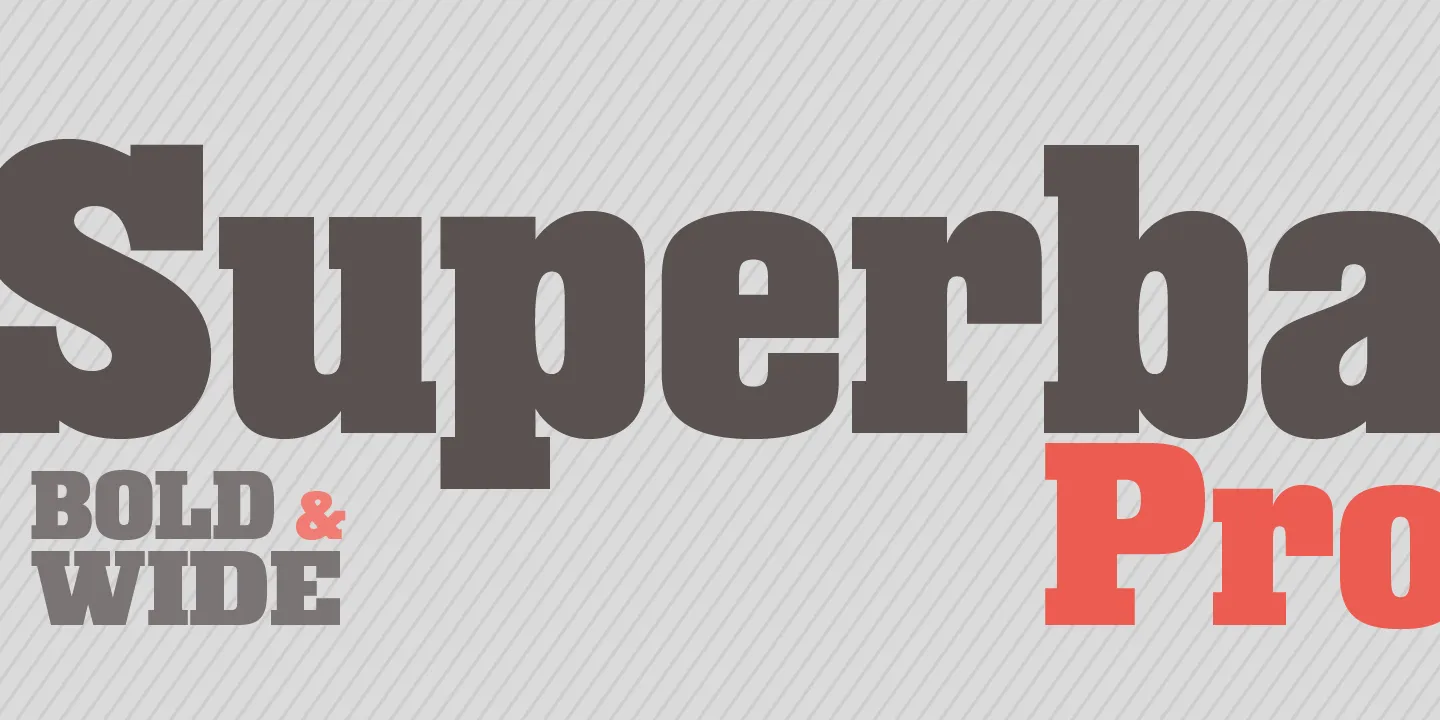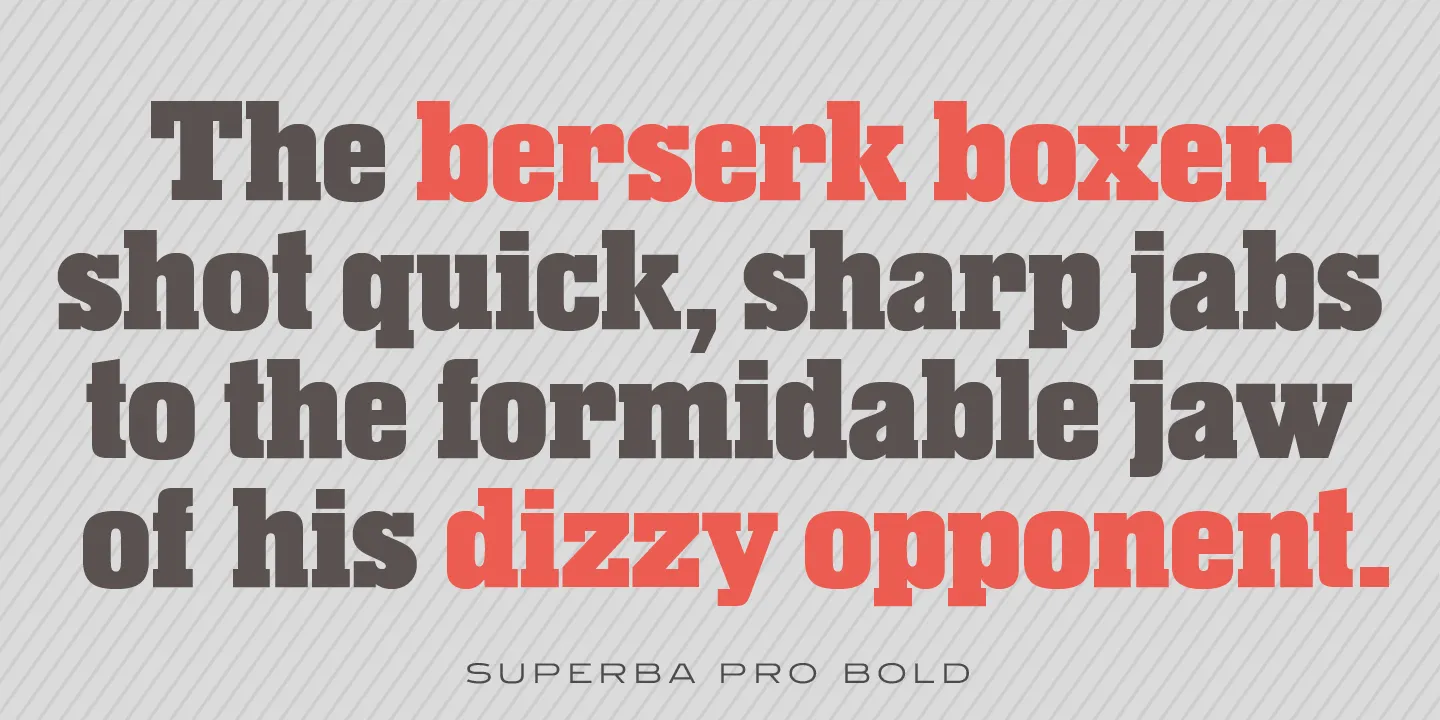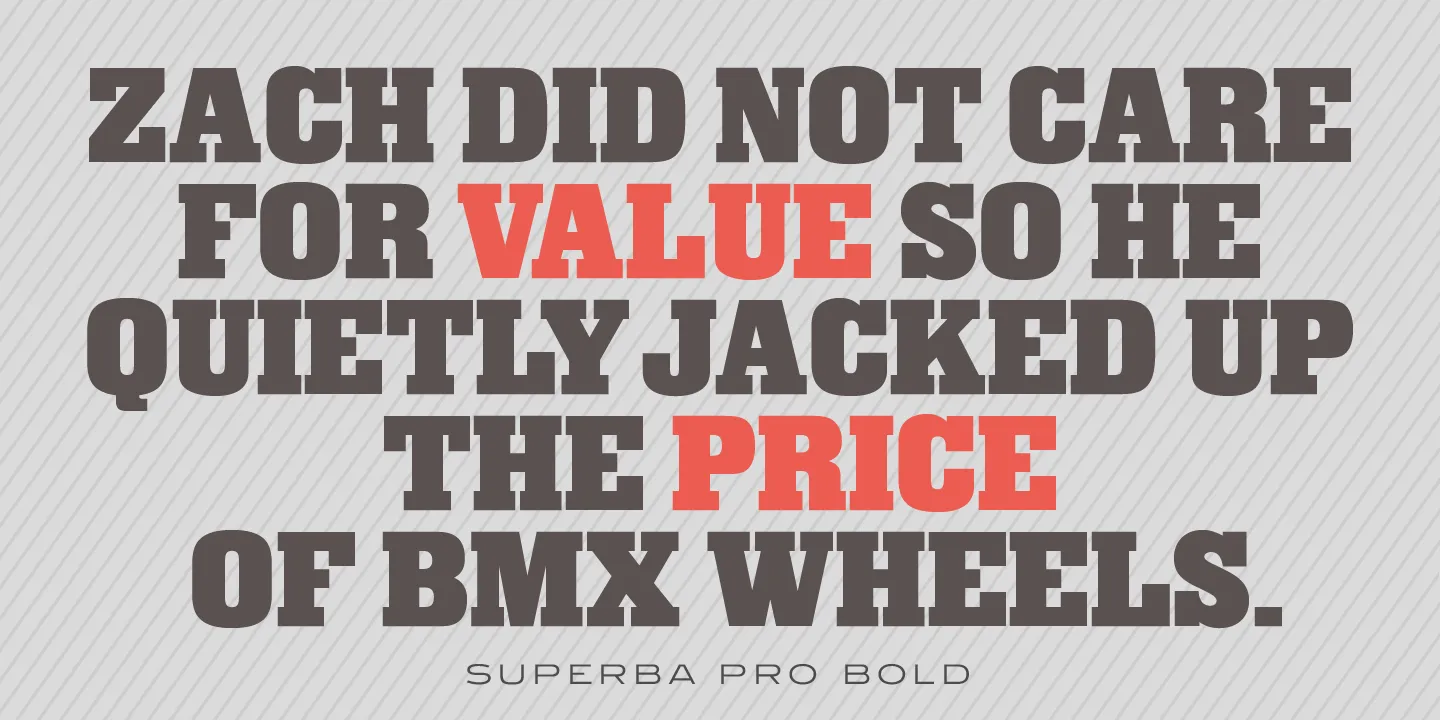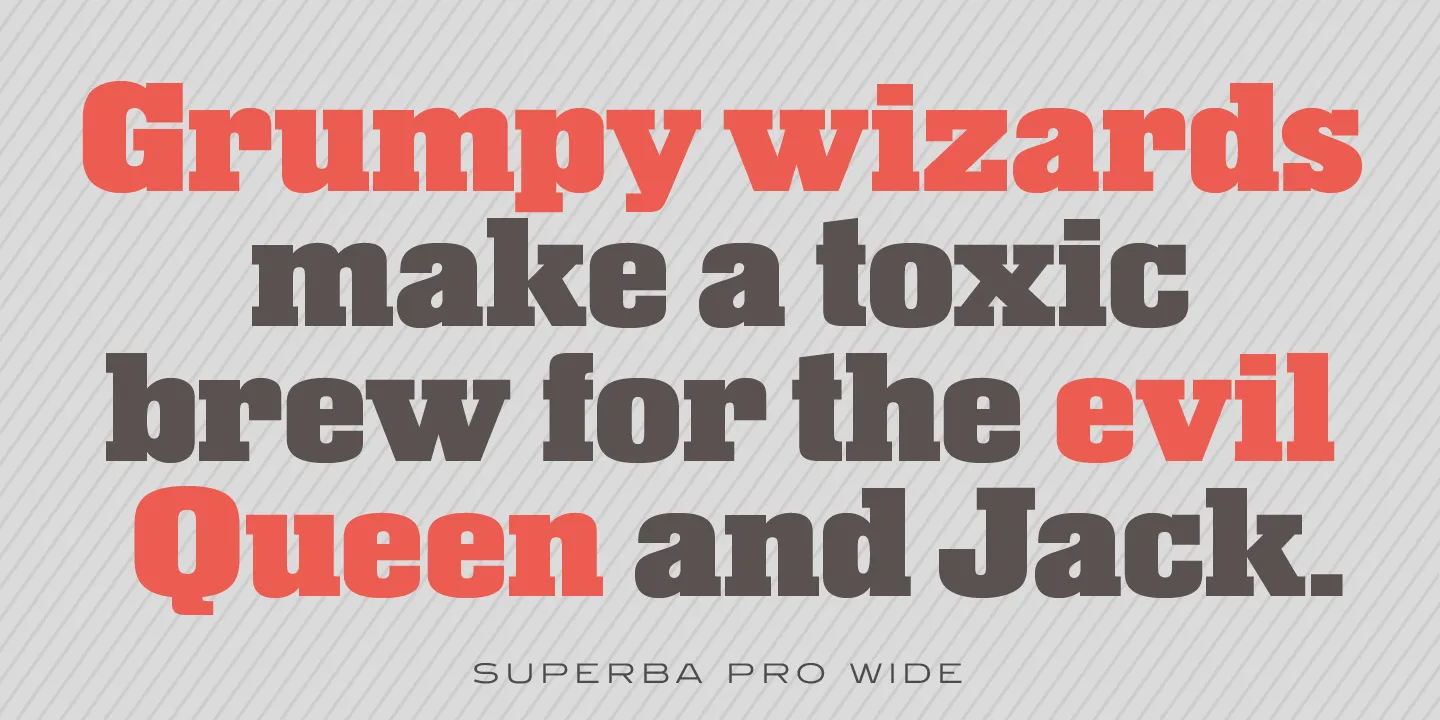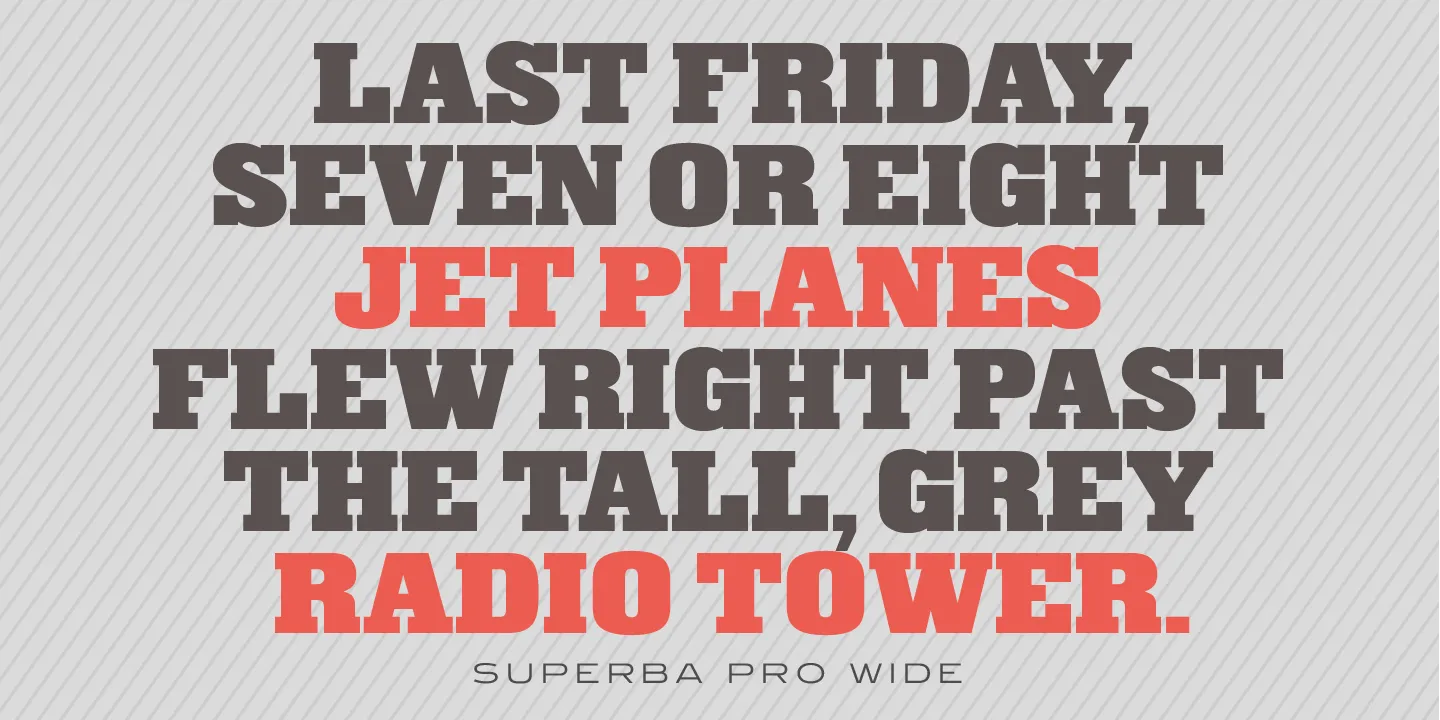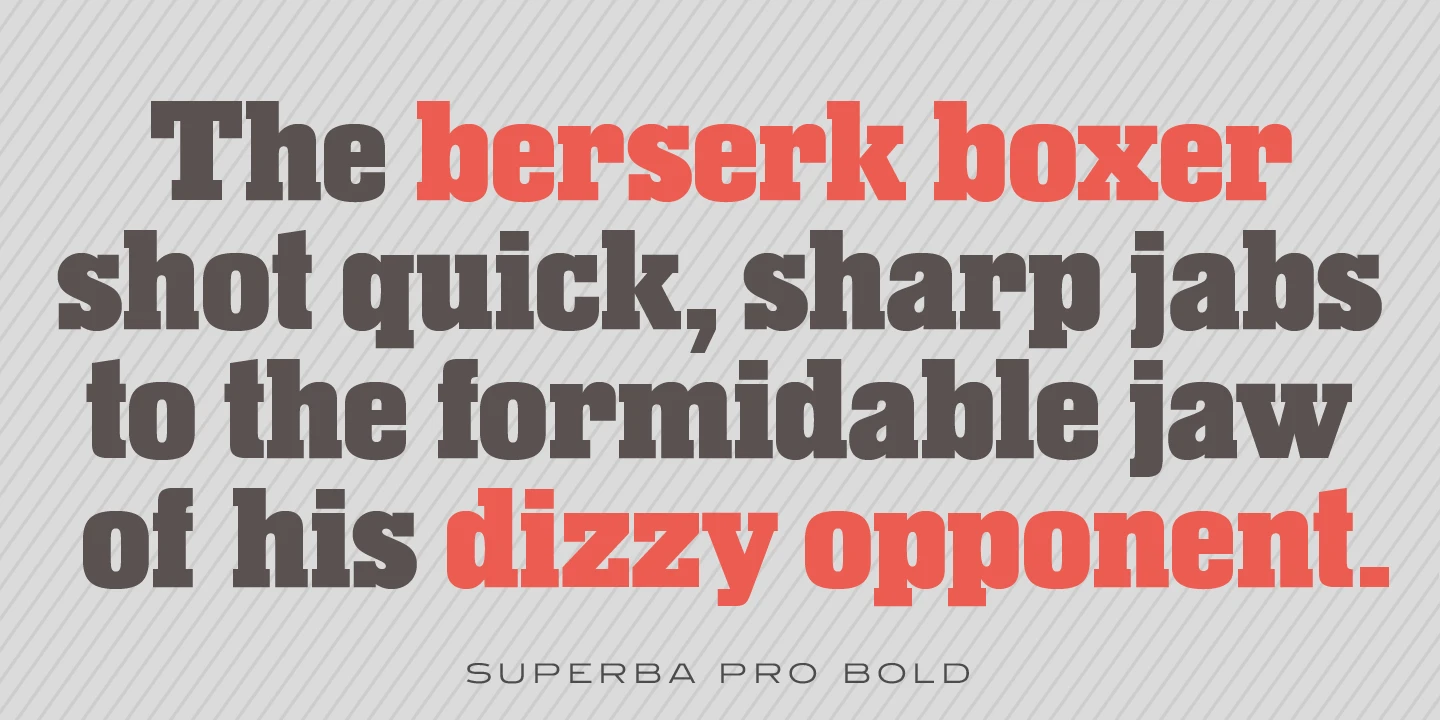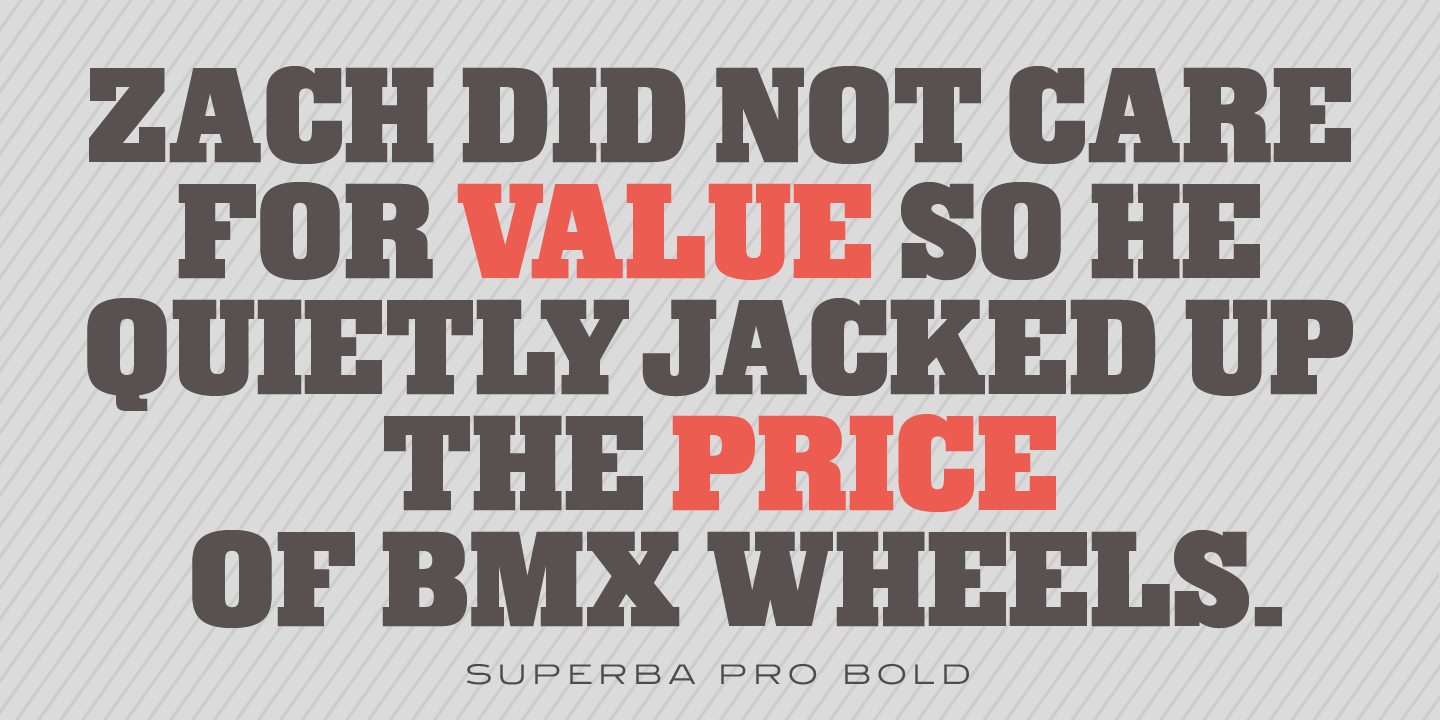
Superba Font Family
Superba is a condensed Egyptian font family with short ascenders and descenders. The dots on the lowercase ‘i’ and the German umlaut-vowels are square. Haas Type Foundry created the original Superba in 1928-1930. Steve Jackaman (ITF) designed and produced a digital version of the bold weight in 1992. In 2017, Jackaman completely redrew the bold weight, added an accompanying wide weight, and expanded the glyph set to support Central and Eastern European languages. Like other slab serif faces, Superba excels at display sizes and is comfortable at subhead sizes. ­ It is robust, and has “superb” legibility, allowing it to dominate attention in any project it is utilized in.
• Czech
• Latvian
• Polish
• Slovak
OpenType Features
• Common Ligatures
• Fractions
• Ordinal Numerals
• Subscript
• Superscript